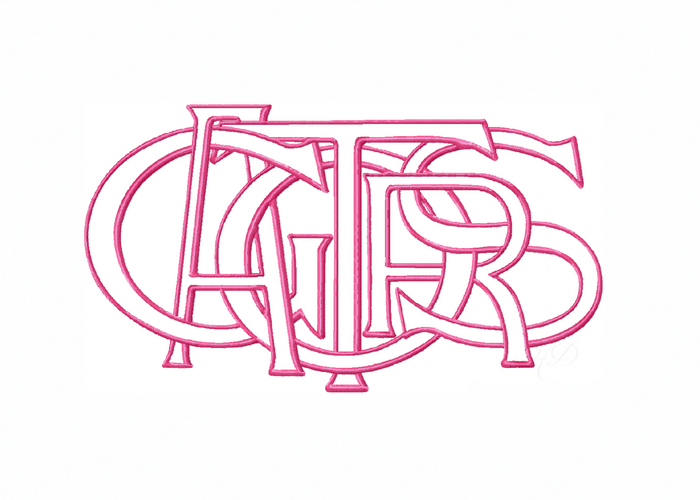
Gators Embroidery Font LayeredType Outline Design
The Gators Embroidery Design is a single color, satin stitch embroidery design for embroidery machine monogramming in the word Gators.